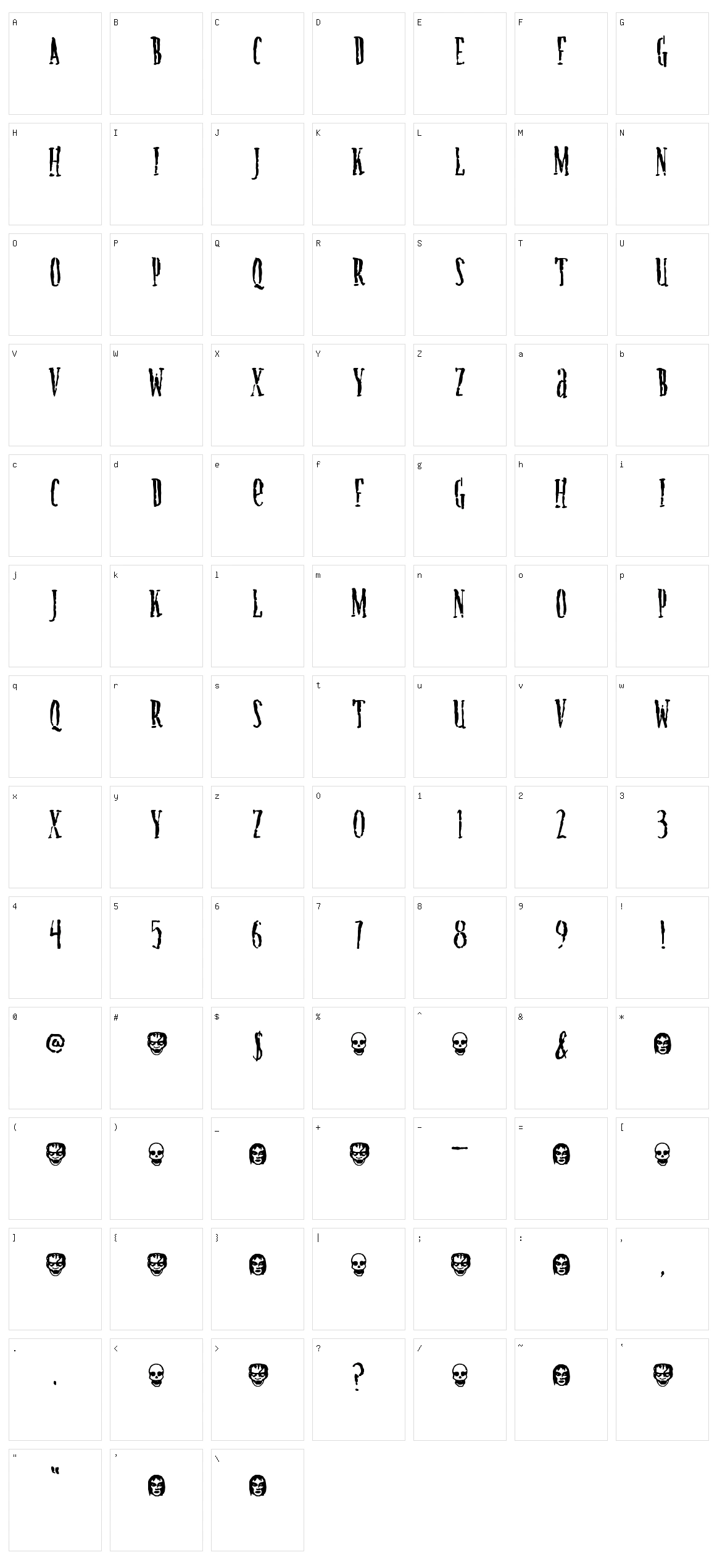
CREATURE!
This display font was hand-lettered with a Sharpie pen on bristol board in the style of old monster magazine lettering. Several monster heads have been thrown in in lieu of useful punctuation. This font is suitable for love letters, church bulletins, and many other uses.